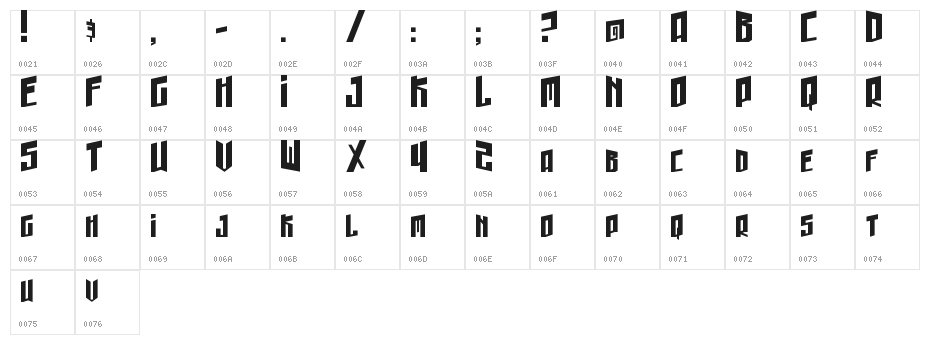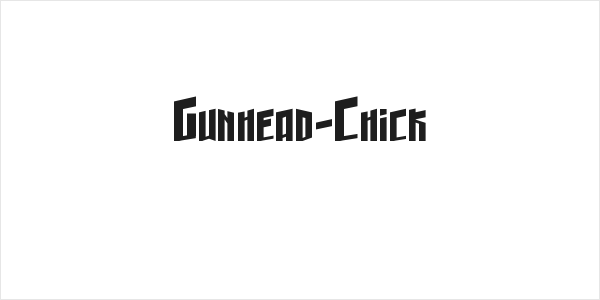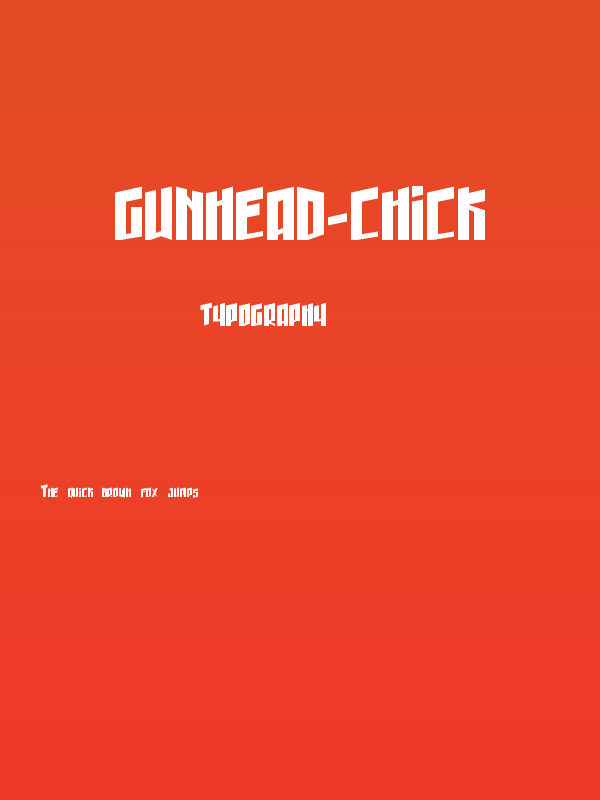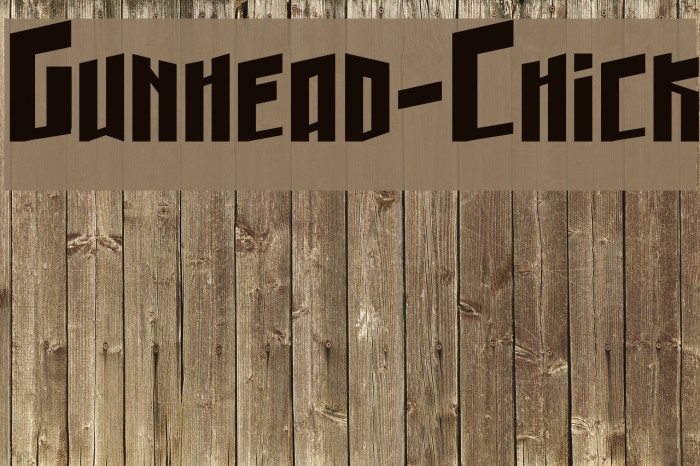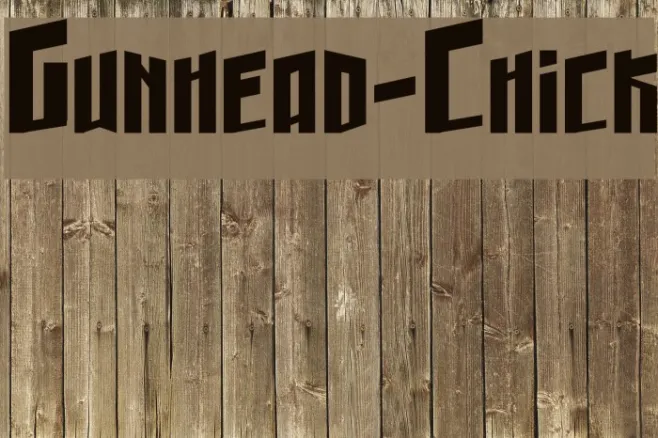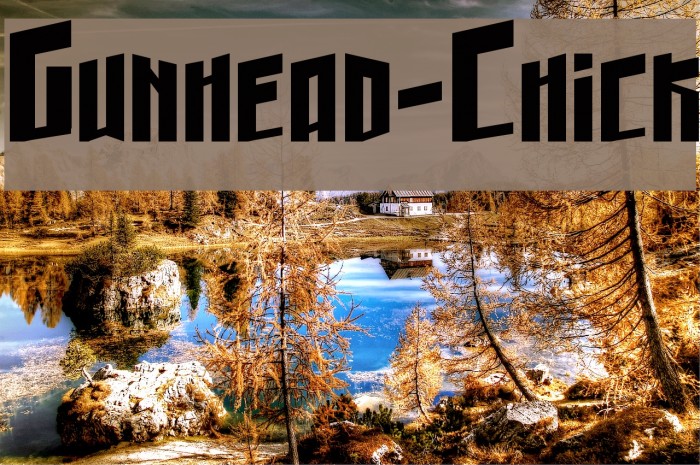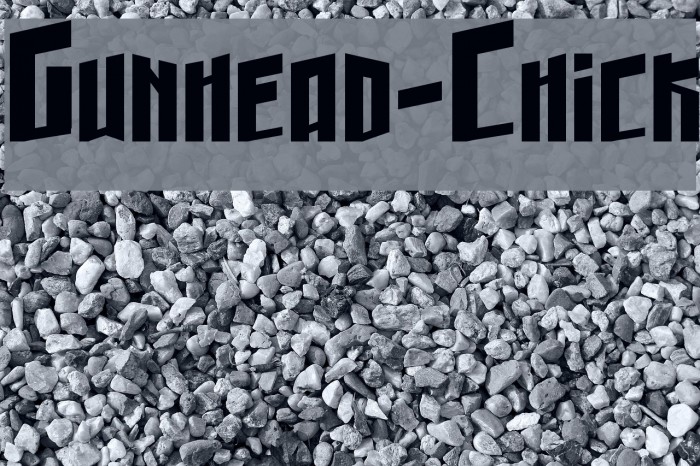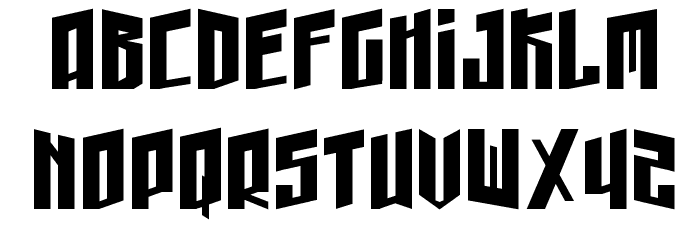
Gunhead-Chick Font
Gunhead-Chick Description
This font features a bold, angular design with a strong geometric influence. The characters have a distinct, blocky appearance, with sharp edges and a slightly futuristic feel. The uppercase letters are particularly striking, with a uniform height and width that creates a cohesive look. The lowercase letters maintain the same angular style, providing consistency across the typeface. Numbers and special characters are designed to match the bold and edgy aesthetic, making them stand out. The overall design is eye-catching and modern, suitable for projects that require a strong visual impact.
GUNHEAD-CHICK UPPERCASE
GUNHEAD-CHICK LOWERCASE
GUNHEAD-CHICK OTHER CHARS